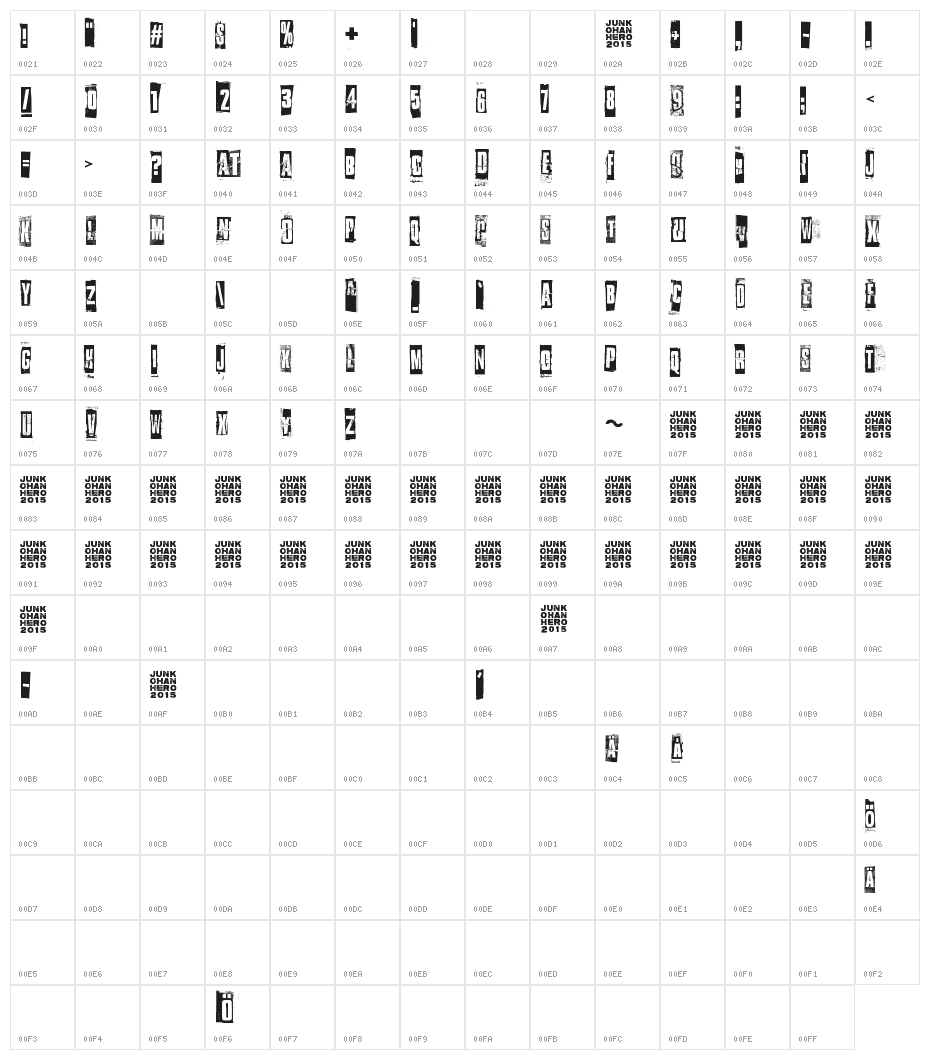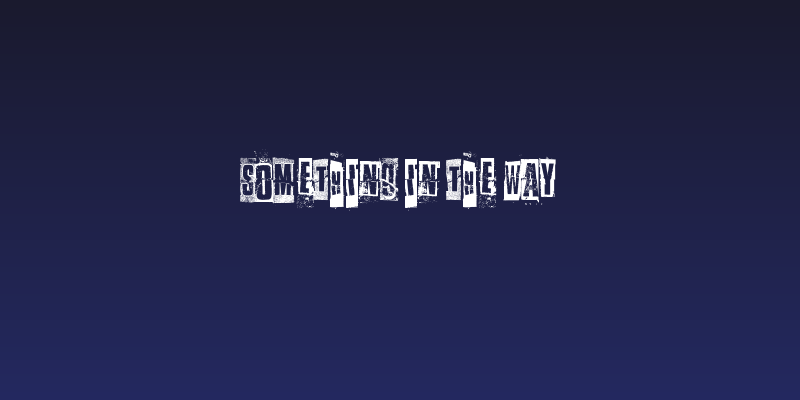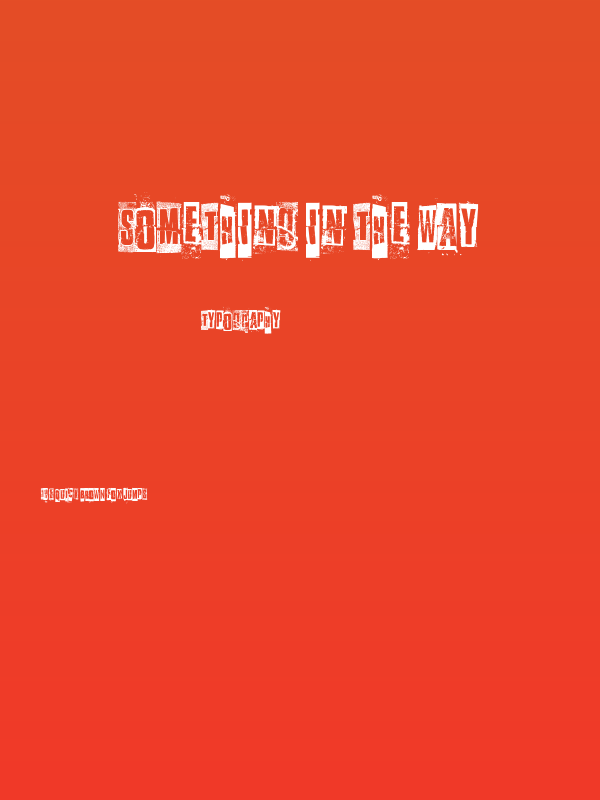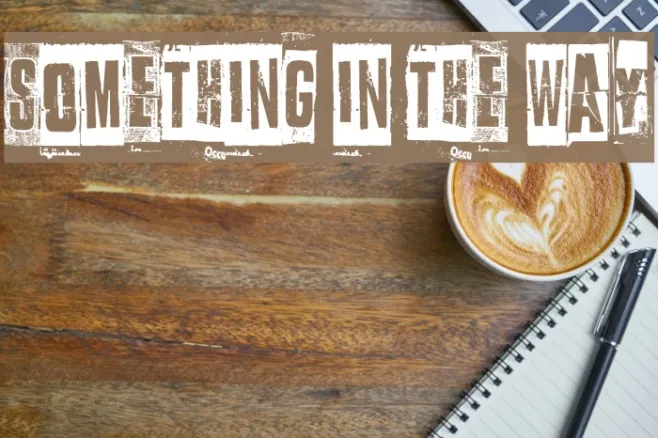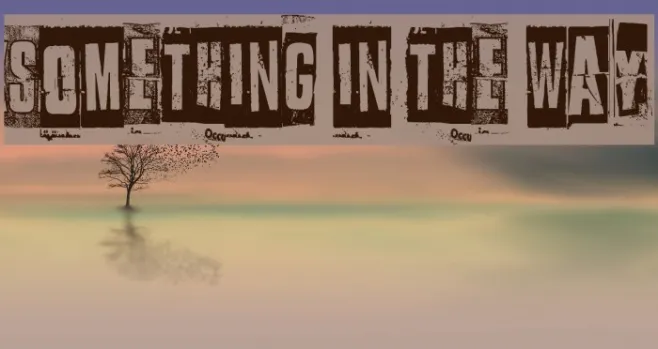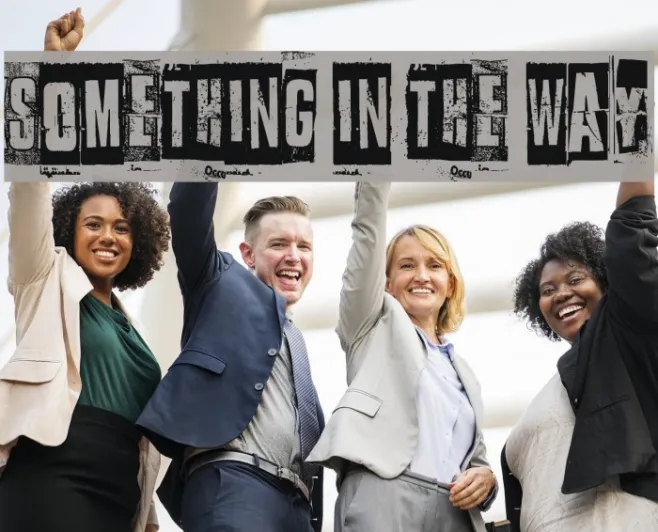
Something in the way Font
Something in the way Description
This font features a distressed, grunge style with a bold and impactful appearance. Each character appears as if it has been cut from a magazine or newspaper, giving it a ransom note aesthetic. The letters are uppercase and have a rough, textured look, adding to the chaotic and edgy feel. The numbers and special characters follow the same design, maintaining consistency throughout the set. This font is ideal for projects that require a rebellious or unconventional vibe, such as music album covers, posters, or urban-themed designs.
| Overall Style | Grunge, Edgy, Distressed |
| Use Case | Headlines, Posters, Branding |
| Proposed Projects | Ideal for music album covers, edgy posters, urban-themed designs, and rebellious branding. |